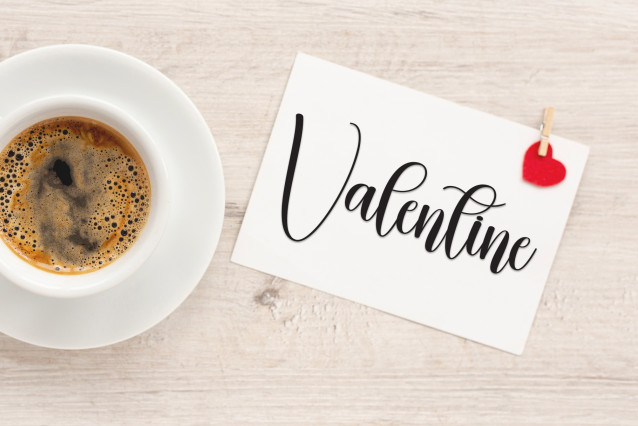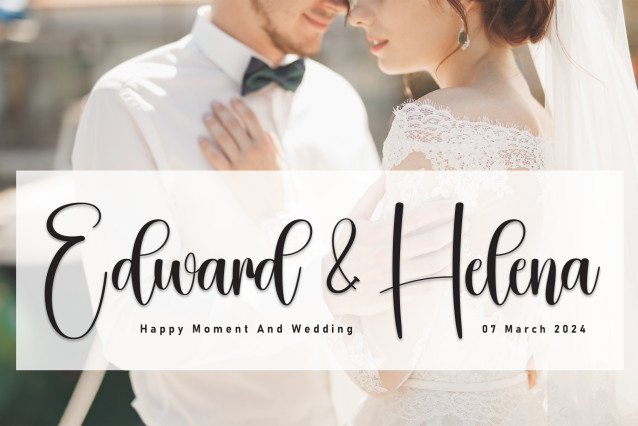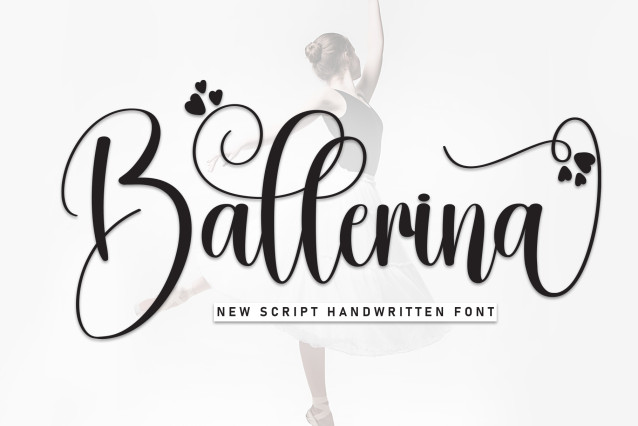
Ballerina Font
Ballerina Font – special creative products for you, our products will give you an extraordinary experience. The latest style letters are perfect for wall displays, wedding invitations, social media post logos, advertisements, product packaging, product designs, labels, photography, watermarks, invitations, stationery, and any project that requires taste handwriting.